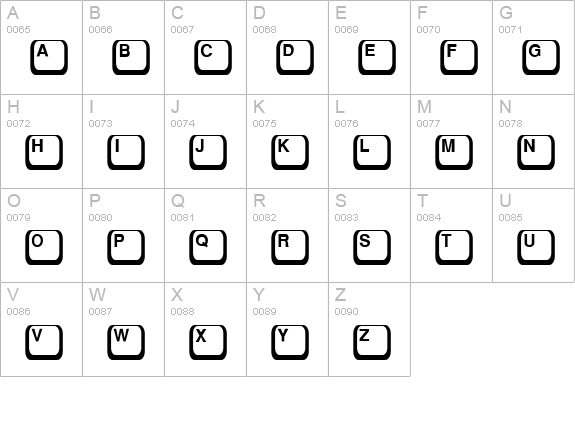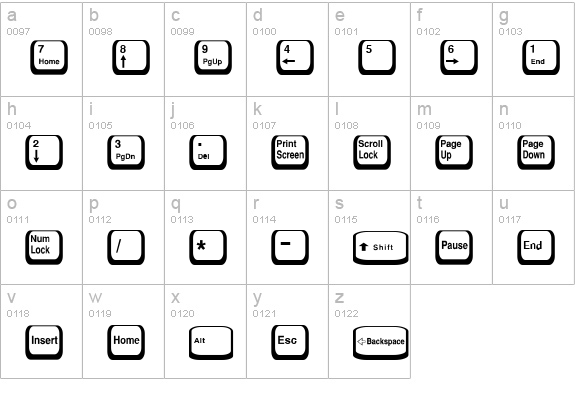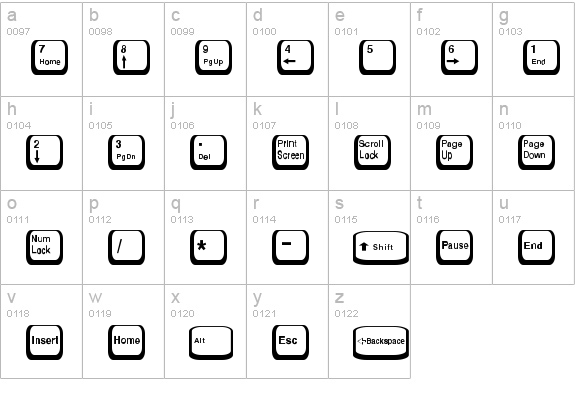
Keycaps 2 Normal is the standard, neutral variant in the Keycaps typeface family \xE2\x80\x94 well suited to general body text, paragraphs, and standard typographic work.